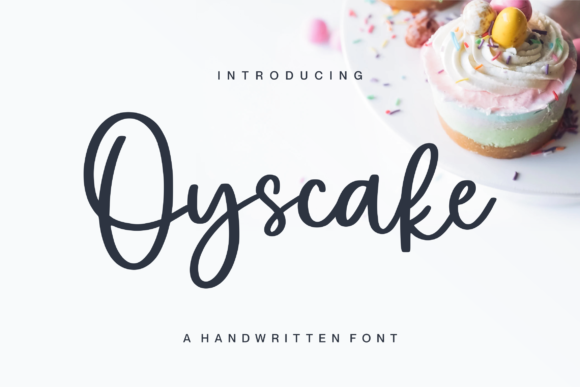
Journey into the realm of distinctive elegance with Oyscake Font, a script font that exudes charm and sophistication. Immerse yourself in the allure of handwritten beauty, crafted with meticulous attention to detail. Oyscake Font is not just a collection of letters; it's an artistic expression that transforms words into works of art.
With its delicate strokes and enchanting curves, Oyscake Font adds a touch of timeless grace to any project. Its inherent charm makes it an ideal choice for wedding invitations, evoking a sense of romance and heartfelt emotion. Picture the joy on your loved ones' faces as they receive your meticulously crafted invitations, adorned with the elegant script of Oyscake Font.
Oyscake Font's versatility extends beyond wedding stationery. Enchant your thank-you cards with a genuine, personal touch. Create heartfelt quotes that resonate with your audience, leaving a lasting impression. Design greeting cards that exude warmth and thoughtfulness, conveying your heartfelt sentiments in a visually captivating manner.
Unleash your creativity with Oyscake Font in logo design. Its distinctive character adds a unique identity to your brand, setting you apart from the ordinary. Envision your logo, meticulously crafted with Oyscake Font, becoming an iconic symbol of your company's essence.
Elevate your business cards with Oyscake Font, transforming them into miniature masterpieces. Make a lasting impression at networking events, leaving potential clients and partners with a tangible reminder of your professionalism and attention to detail.
Oyscake Font is a font for all seasons, effortlessly adapting to a myriad of design projects. Its timeless elegance complements vintage-inspired designs, adding a touch of nostalgia and charm. Simultaneously, its modern flair seamlessly integrates into contemporary aesthetics, creating a striking visual impact.
Immerse yourself in the world of Oyscake Font, where creativity knows no bounds. Let your imagination soar as you explore the endless possibilities of this captivating font. Transform your designs into breathtaking expressions of artistry, leaving an indelible mark on the hearts and minds of your audience.